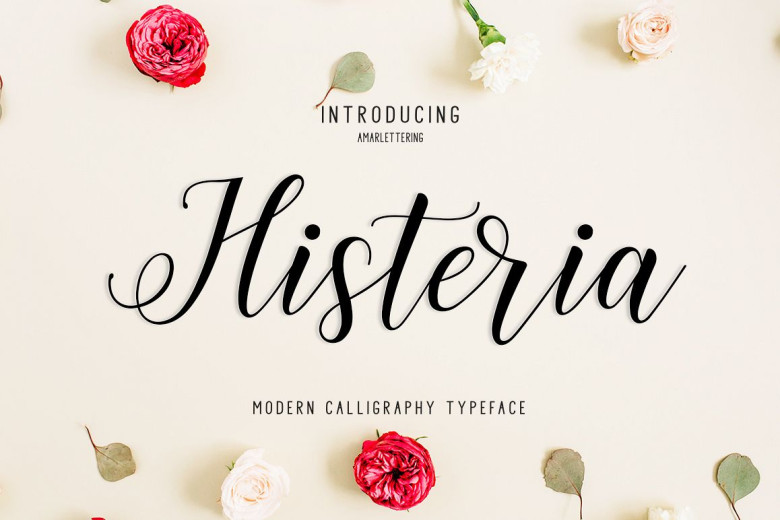
Histeria Script Font
Introducing Histeria Font! Histeria designed by Amarlettering. Histeria a new fresh & modern script with a handmade calligraphy style, decorative characters and a dancing baseline! So beautiful on invitation like greeting cards, branding materials, business cards, quotes, posters, and more!